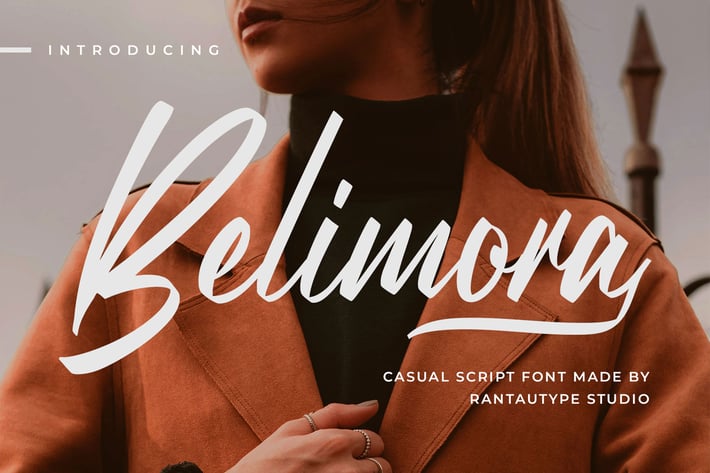
Belimora Casual Script Font
Belimora is casual script font made with love and passion. Belimora is a perfectly choice for any creative endeavor, creating, modern, chic, lifestyle design such as logotype, title, cover, branding, invitations, wedding designs, display and magazine, social media posts, advertisements, printed quotes, product packaging, corporate brand, product designs, labels, photography, watermarks, special events and any other project with handwritten touch.